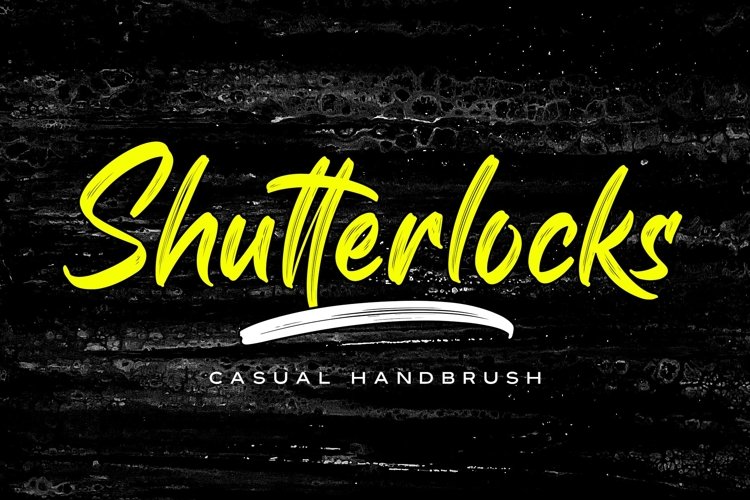
Shutterlocks
Shutterlocks Swash
Shutterlocks Slant
Shutterlocks
Introducing Shutterlocks â€“ Casual Handbrush is a best handwritten brush that is written casually and quickly. Letters are made with brushes on Ipad. Then scanned and carefully drawn into vector format. That is why Crash Soul has charming, authentic and relaxed characteristic more natural look to your text with a more natural look to your text. You can activate Ligature OpenType panel to make these two styles. It also has many alternatives and underlines that make your text and design more interesting.Crash Soul is perfect for homeware designs,branding projects, Logo design, Quotes product packaging